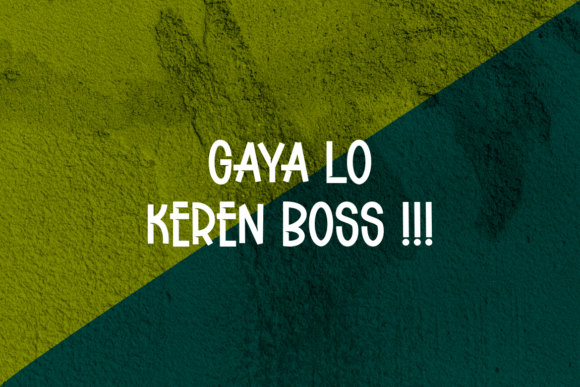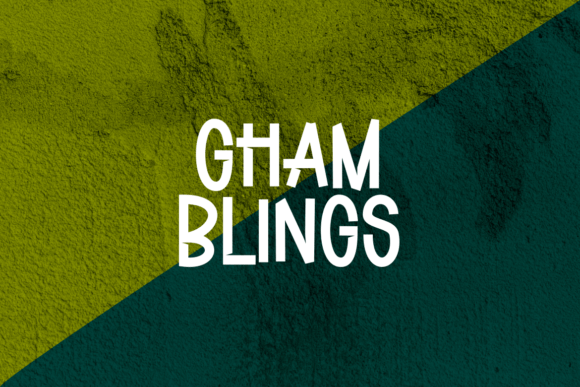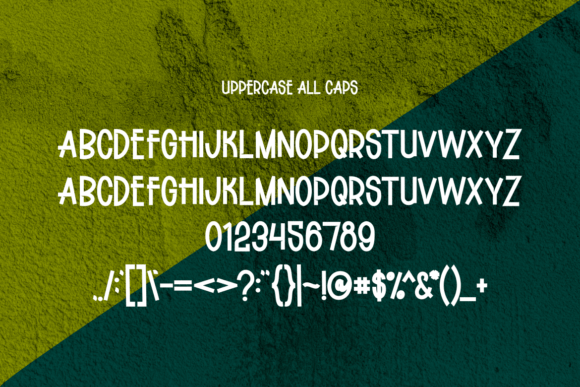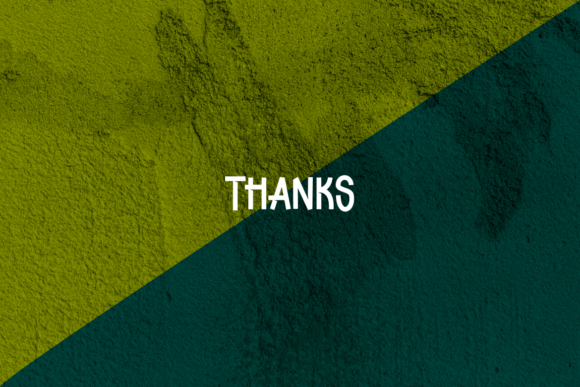
Ghamblings Font: Unleash Your Creativity with a Bold, Urban Look
Are you tired of using the same old fonts in your designs? Do you want to add a touch of edginess and urban flair to your text? Look no further than the Ghamblings font! This graffiti-style font is perfect for designers and crafters who want to give their work a cool, hand-drawn feel.
What is Ghamblings Font?
Ghamblings is a bold, urban font that features thick, chunky letters with a graffiti-style aesthetic. The font has a cool, hand-drawn feel that is reminiscent of street art. With its unique and edgy design, Ghamblings is perfect for adding a touch of personality to your text.
Key Features of Ghamblings Font
- Bold and Chunky Letters: Ghamblings features thick, chunky letters that are sure to grab attention.
- Graffiti-Style Aesthetic: The font has a cool, graffiti-style aesthetic that is perfect for adding an edgy touch to your text.
- Hand-Drawn Feel: Ghamblings has a unique, hand-drawn feel that gives it a personal and artistic touch.
- Urban Look: The font has a bold, urban look that is perfect for designers and crafters who want to add a touch of street art to their work.
Uses of Ghamblings Font
Ghamblings is a versatile font that can be used in a variety of design projects, including:
- Graphic Design: Use Ghamblings to add a touch of edginess to your graphic designs, such as posters, flyers, and brochures.
- Branding: Ghamblings is perfect for creating bold and eye-catching logos and brand identities.
- Crafting: Use Ghamblings to add a personal touch to your crafting projects, such as handmade cards, scrapbook pages, and DIY signs.
- Street Art: Ghamblings is perfect for creating street art, such as murals, stencils, and graffiti.
Tips for Using Ghamblings Font
Here are some tips for using Ghamblings font in your designs:
- Use it sparingly: Ghamblings is a bold font, so use it sparingly to avoid overwhelming your design.
- Pair it with other fonts: Ghamblings looks great when paired with other fonts, such as sans-serif fonts or script fonts.
- Experiment with colors: Ghamblings looks great in bold, bright colors, but you can also experiment with different colors and textures to add depth and interest to your design.
Ghamblings font is a bold, urban font that is perfect for designers and crafters who want to add a touch of edginess and personality to their work. With its graffiti-style aesthetic and hand-drawn feel, Ghamblings is sure to grab attention and make your designs stand out. So why not give it a try and see how you can use Ghamblings to unleash your creativity and take your designs to the next level?